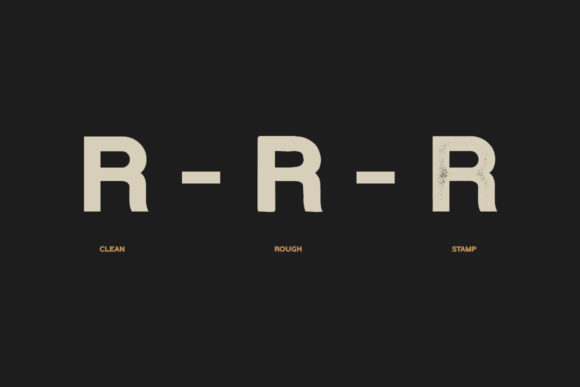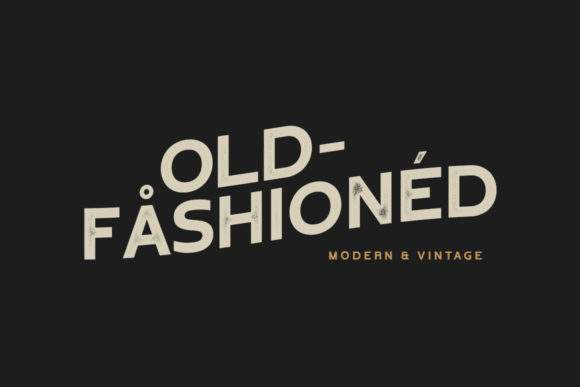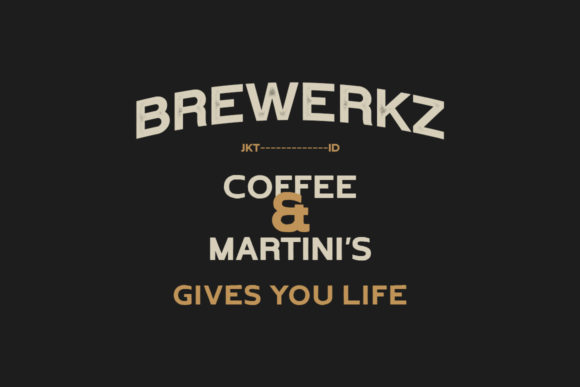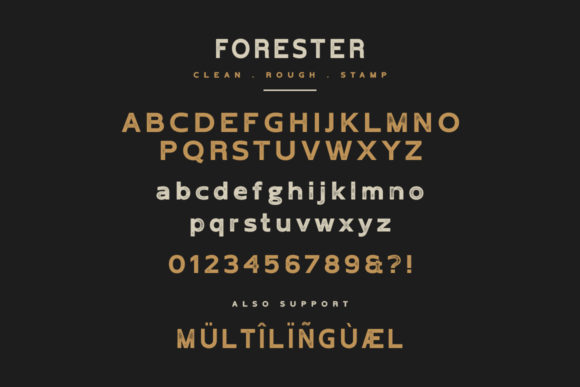
Introducing Forester Font: Elevate Your Design with a Modern Twist
Are you tired of using the same old fonts in your design projects? Look no further than Forester Font, a stunning and bold sans serif font that’s sure to add a modern feel to any design. With its amazing feel and versatility, Forester Font is perfect for designers and crafters looking to take their work to the next level.
The Features of Forester Font
Forester Font is a sans serif font, which means it doesn’t have the small lines or flourishes at the ends of the letters. This gives it a clean and modern look that’s perfect for a wide range of design projects. Some of the key features of Forester Font include:
- Bold and striking: Forester Font is a bold font that’s designed to make a statement. It’s perfect for headlines, titles, and other applications where you want to grab the reader’s attention.
- Clean and modern: The sans serif design of Forester Font gives it a clean and modern look that’s perfect for designs that need to feel fresh and contemporary.
- Versatile: Forester Font is a versatile font that can be used in a wide range of design projects, from logos and branding to packaging and advertising.
Why Choose Forester Font?
So why should you choose Forester Font for your next design project? Here are just a few reasons:
- Adds a modern feel: Forester Font is designed to add a modern feel to any design project. Its bold and striking design makes it perfect for designs that need to feel fresh and contemporary.
- Easy to read: Despite its bold design, Forester Font is easy to read, even at small sizes. This makes it perfect for body text as well as headlines.
- Unique: Forester Font is a unique font that’s sure to set your design apart from the crowd. Its bold and striking design makes it perfect for designers who want to create something truly memorable.
How to Use Forester Font in Your Design Projects
Forester Font is easy to use in a wide range of design projects. Here are a few ideas to get you started:
- Logos and branding: Forester Font is perfect for logos and branding projects where you want to create a bold and memorable design.
- Headlines and titles: Forester Font is designed to grab the reader’s attention, making it perfect for headlines and titles.
- Packaging: Forester Font is a great choice for packaging projects where you want to create a modern and eye-catching design.
- Advertising: Forester Font is perfect for advertising projects where you want to create a bold and striking design that grabs the reader’s attention.
Tips for Getting the Most Out of Forester Font
Here are a few tips for getting the most out of Forester Font:
- Experiment with different sizes: Forester Font is designed to be bold and striking, but it can also be used at smaller sizes. Experiment with different sizes to find the one that works best for your design.
- Pair it with other fonts: Forester Font can be paired with other fonts to create a unique and interesting design. Try pairing it with a serif font for a bold and striking contrast.
- Use it consistently: To get the most out of Forester Font, use it consistently throughout your design project. This will help to create a cohesive and professional-looking design.
Forester Font is a stunning and bold sans serif font that’s perfect for designers and crafters looking to add a modern feel to their design projects. With its clean and modern design, versatility, and ease of use, Forester Font is sure to become a go-to font for designers everywhere. Whether you’re working on a logo, headline, or packaging project, Forester Font is a great choice for creating a bold and striking design that grabs the reader’s attention.